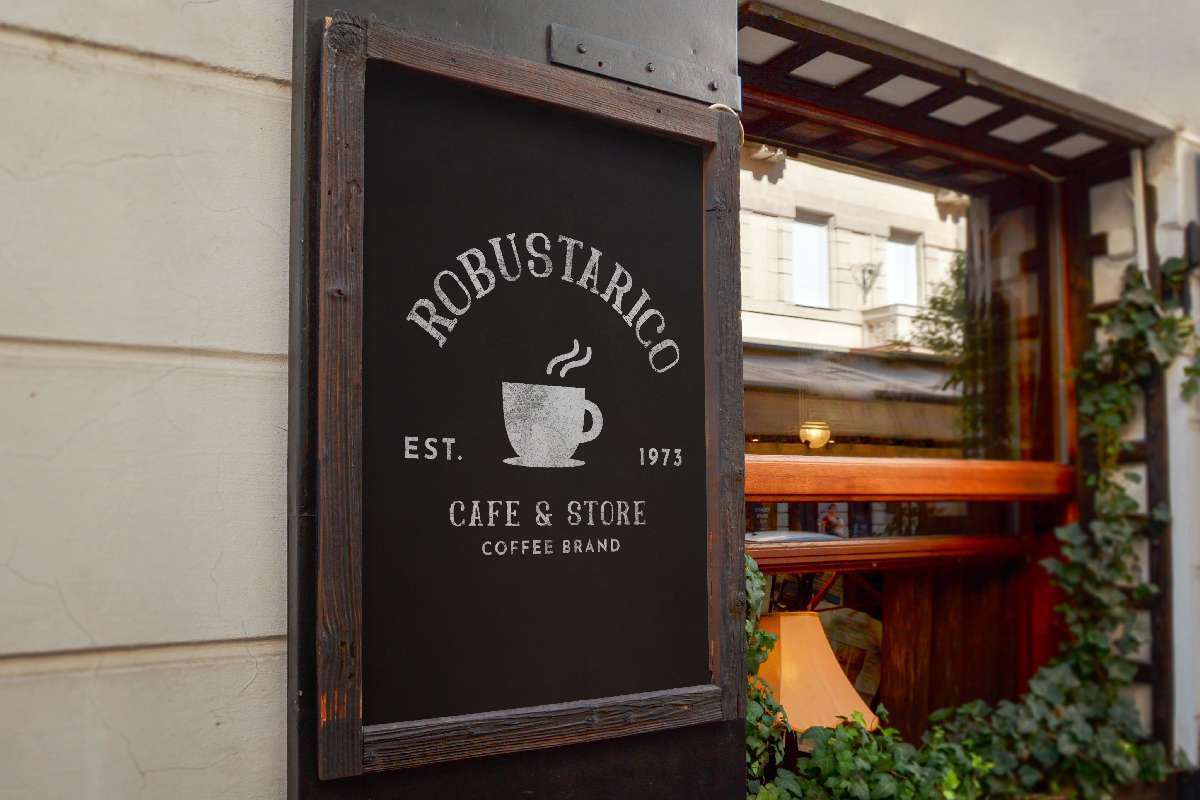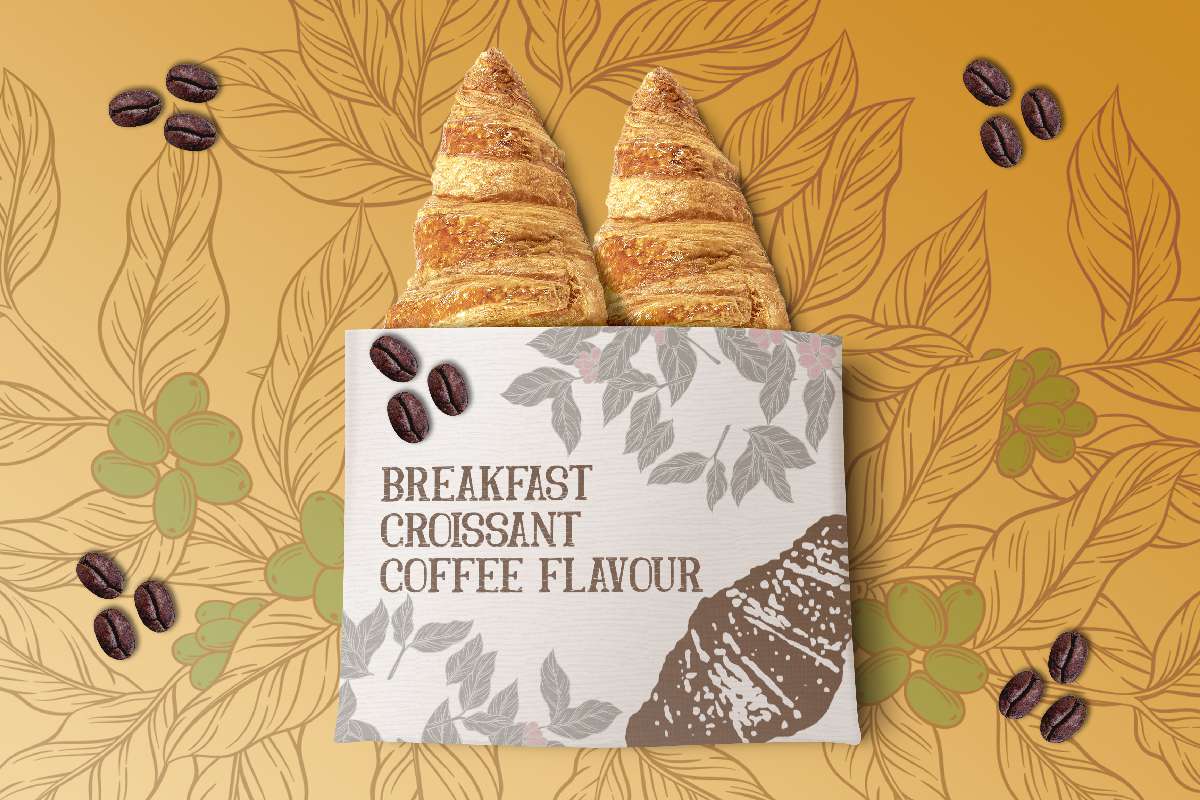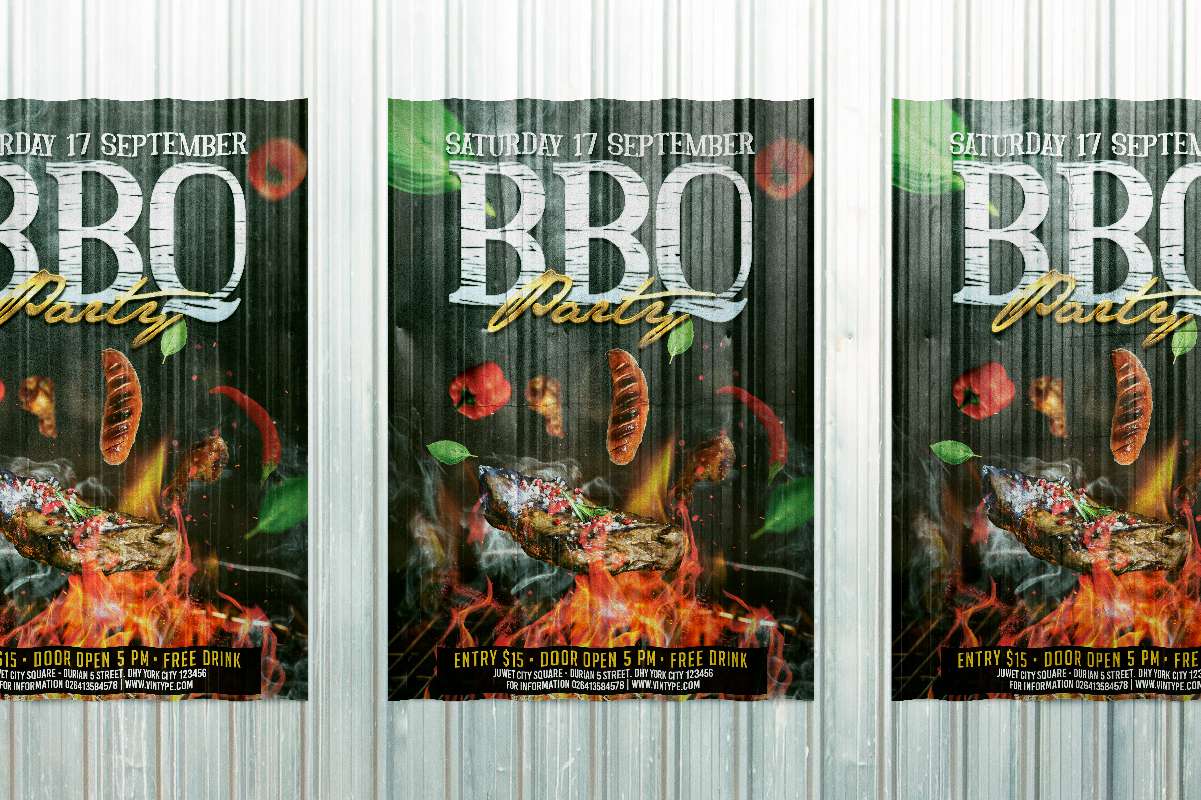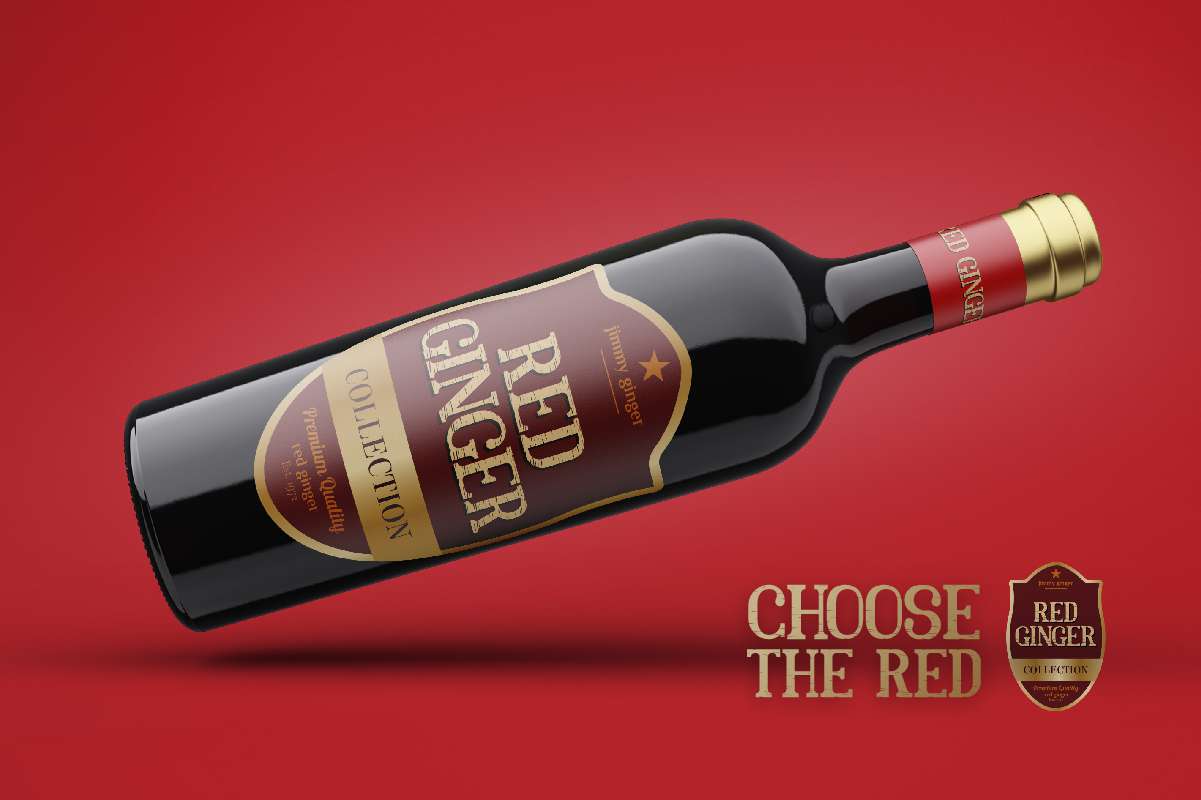
Jimmy Chalk Font
Jimmy Chalk Display Font
It’s a display serif font. This font has a lined or messy style chalk effect that looks awesome in just about every context. Use it for game, logos, promotion, products, title, and more!
Jimmy Chalk Font includes set of Uppercase Basic Characters, Numerals and Punctuation. Jimmy Chalk Font will be great for Use it for any project that needs a unique, aesthetic and creative look and perfect your extraordinary project!